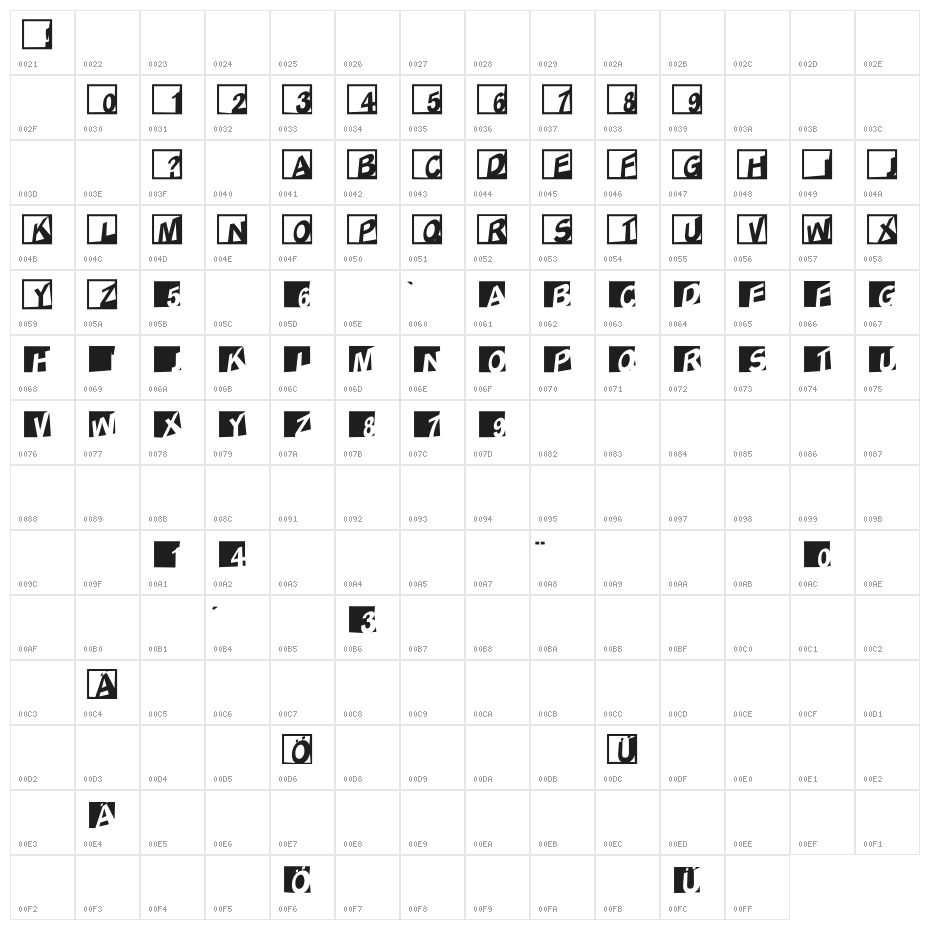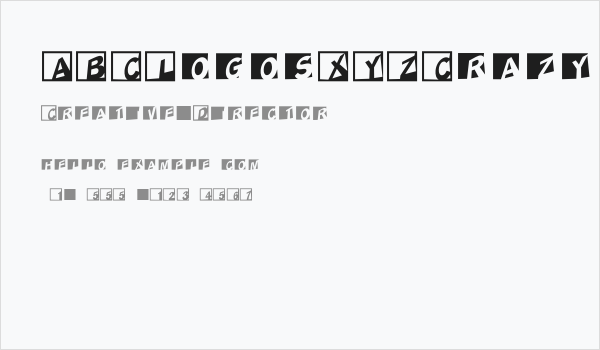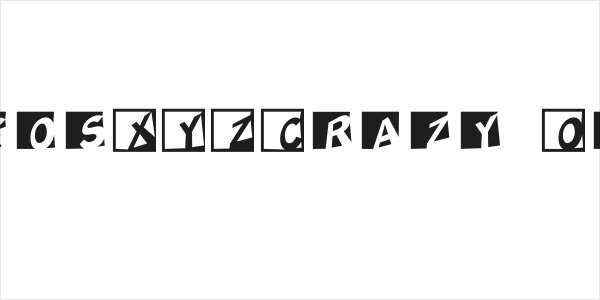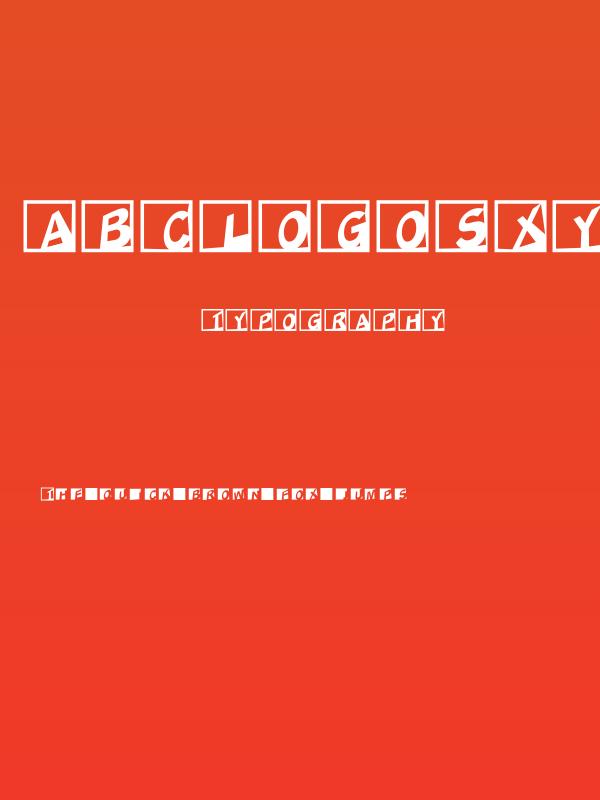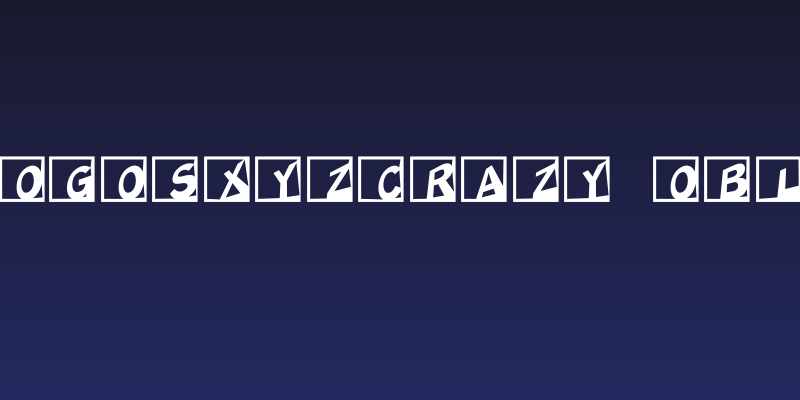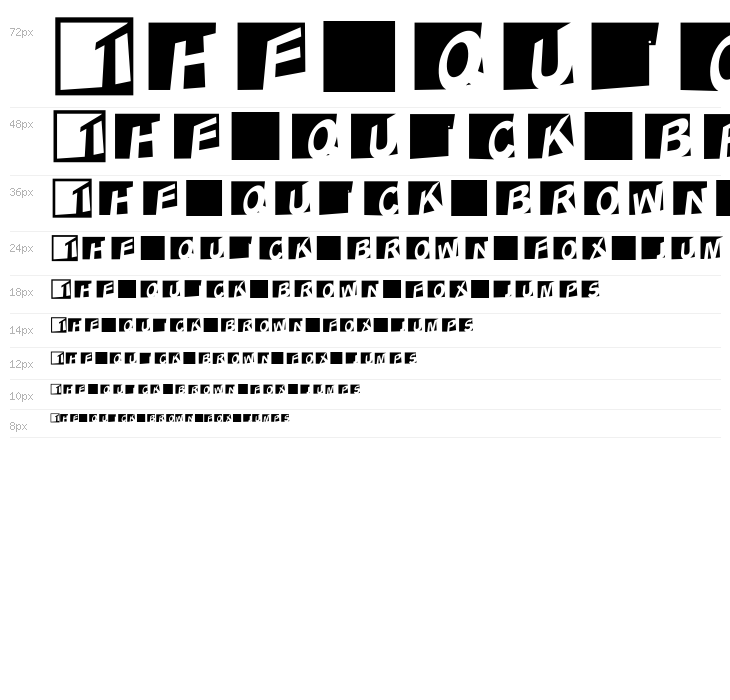
ABCLogosXYZCrazy-Oblique Font
ABCLogosXYZCrazy-Oblique Description
This font features a bold and dynamic style with each character enclosed in a square, creating a striking visual impact. The letters are slightly tilted, adding a sense of movement and energy. The design incorporates a mix of solid and negative spaces, giving it a playful and modern feel. The uppercase and lowercase letters maintain a consistent style, while the numbers and special characters follow the same bold and energetic theme. This font is ideal for projects that require a strong and eye-catching display.
| Use Case | Logos, Posters, Headlines |
| Proposed Projects | Ideal for logos, posters, and any design that requires a bold and energetic display. |